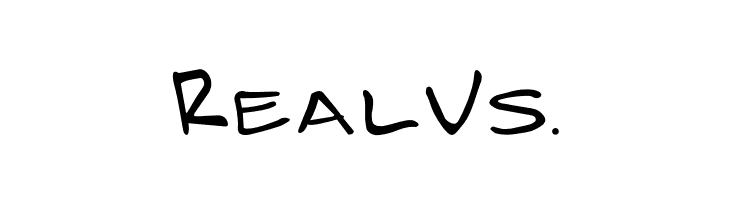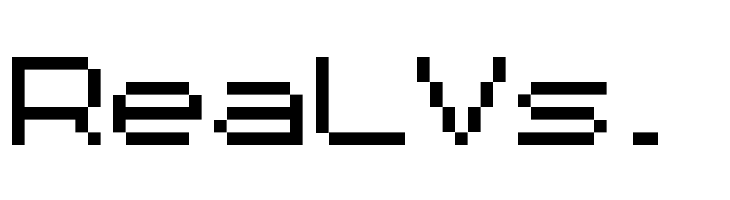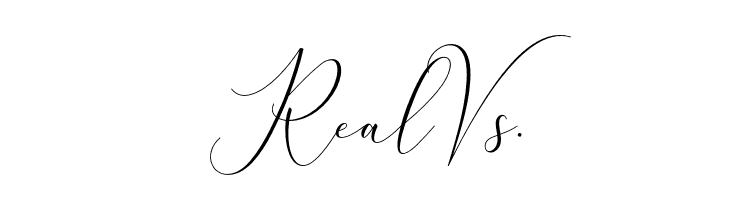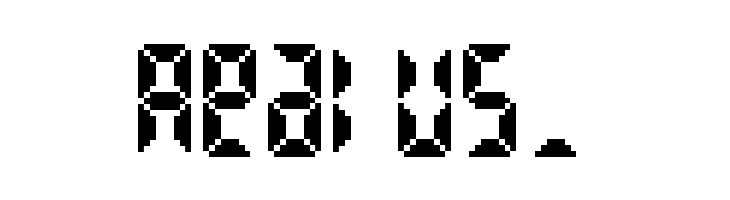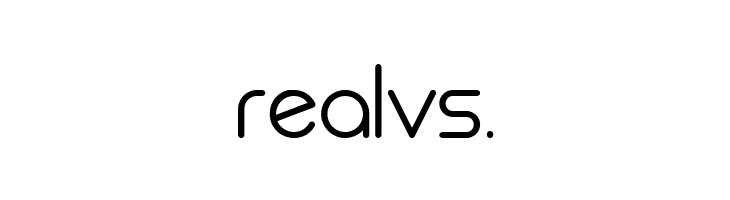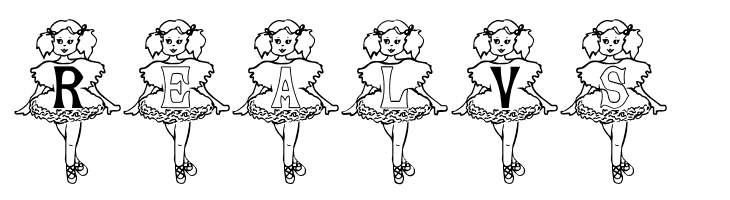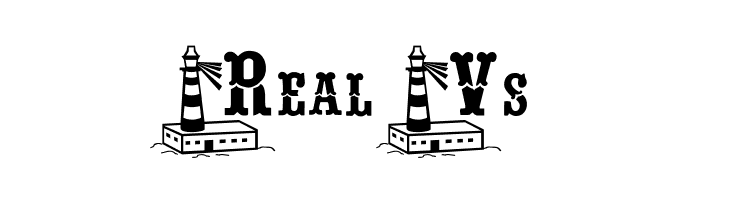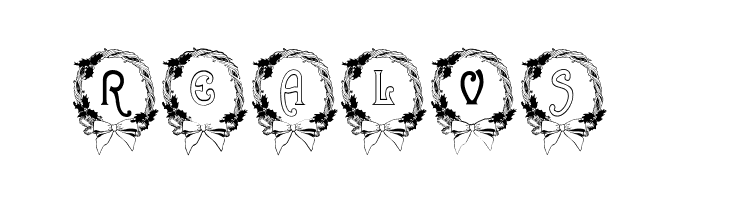
A modern geometric font with angular, futuristic design and consistent stroke width.
An ornate and decorative font with intricate flourishes and high contrast.
An ornate, calligraphic font with decorative elements.
A bold, blackletter font with sharp, angular lines and a medieval aesthetic.
A bold, italicized font with sharp angles and a dynamic, modern style.
A dynamic, italicized font with sharp, angular strokes and a modern look.
A decorative, gothic-inspired font with angular, geometric shapes.
A pixelated blackletter font with a bold, gothic style.
A dot-matrix style font with a modern, digital aesthetic.
A pixelated, retro font inspired by early digital and arcade aesthetics.
A bold, expressive font with a handcrafted, artistic flair.
A pixelated, retro-style font inspired by early digital displays.
A pixelated, retro-style font inspired by classic 8-bit video games.
A bold, cursive calligraphic font with fluid, interconnected strokes.
A bold, italic calligraphic font with fluid, interconnected strokes.
A cursive, calligraphic font with elegant, flowing lines and an italic slant.
A classic calligraphic font with elegant, flowing strokes and seamless connections.
A bold, playful font with rounded, bubble-like characters ideal for fun and creative designs.
A playful and eclectic font with unique designs for each character.
A bold, abstract font with fragmented, angular characters.